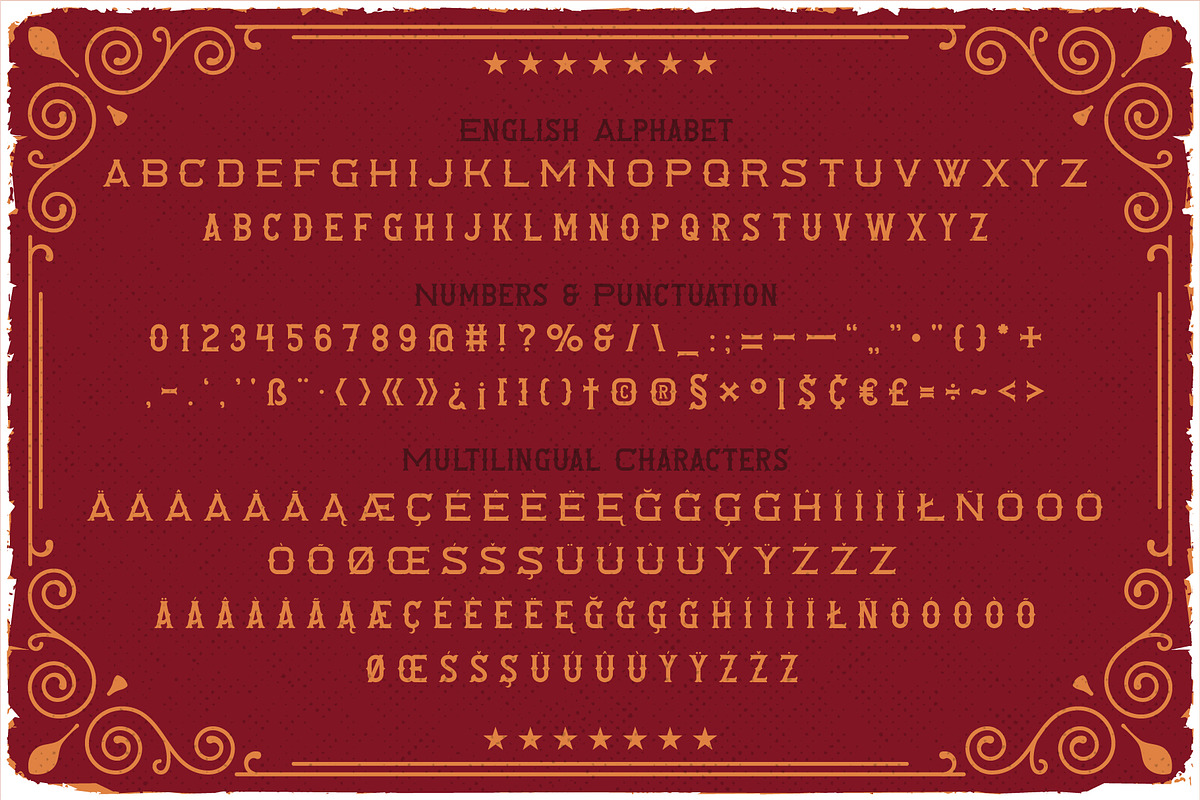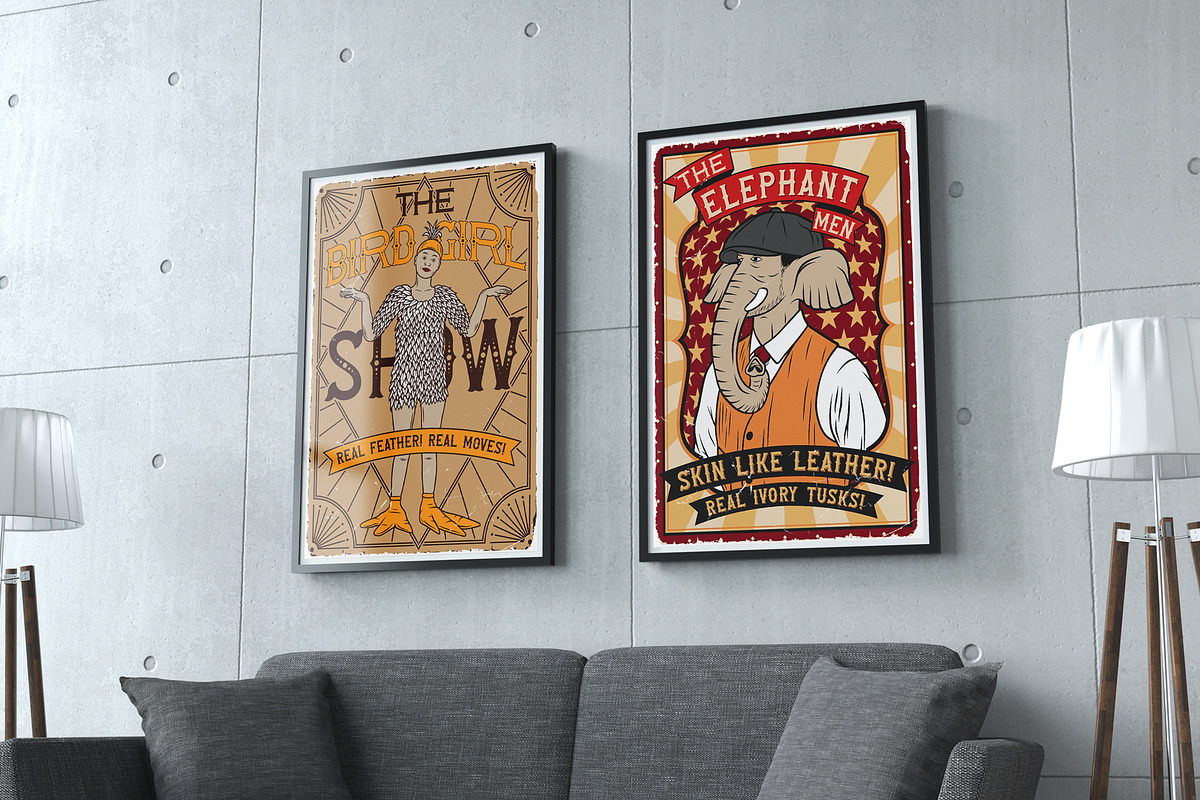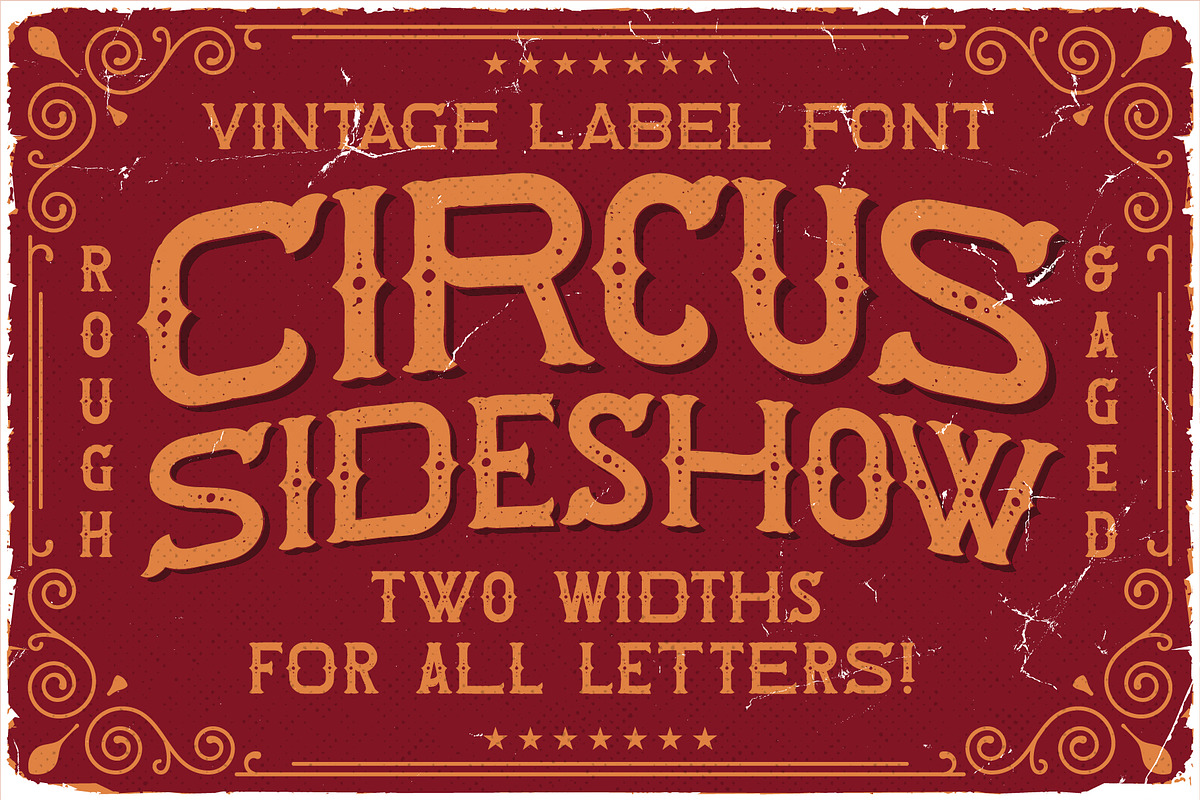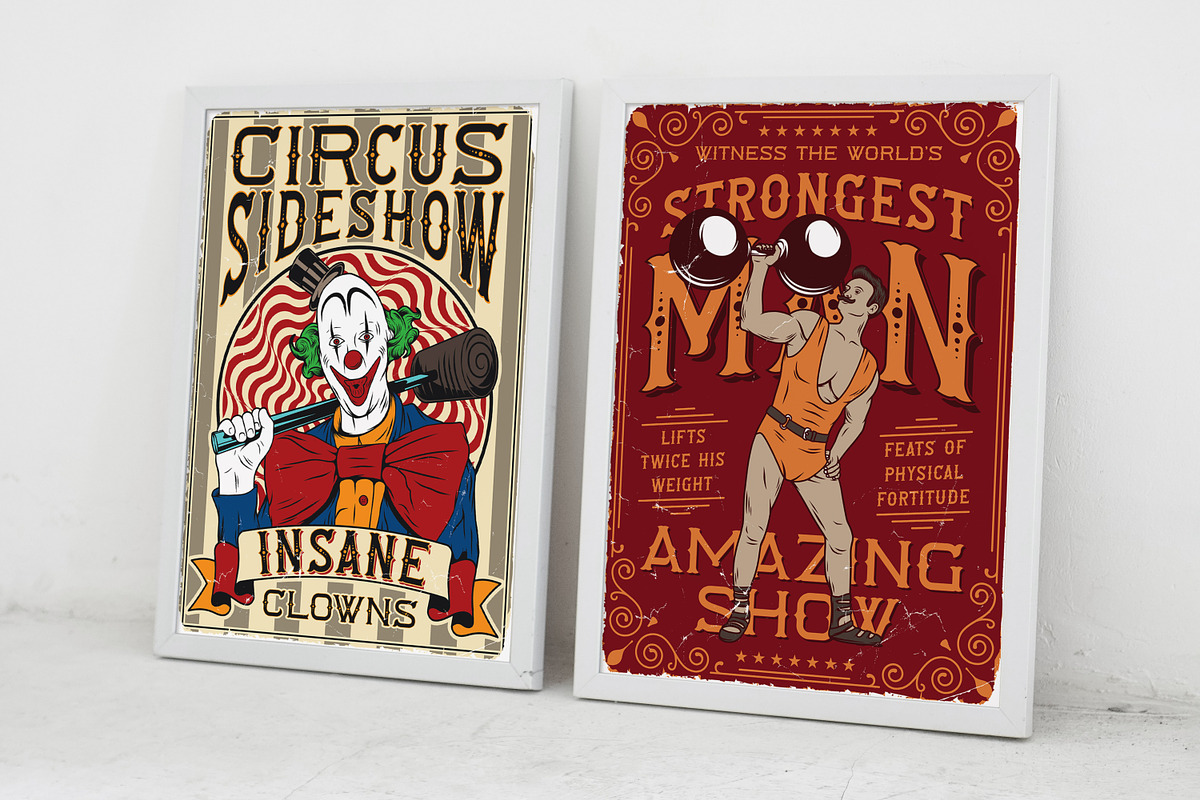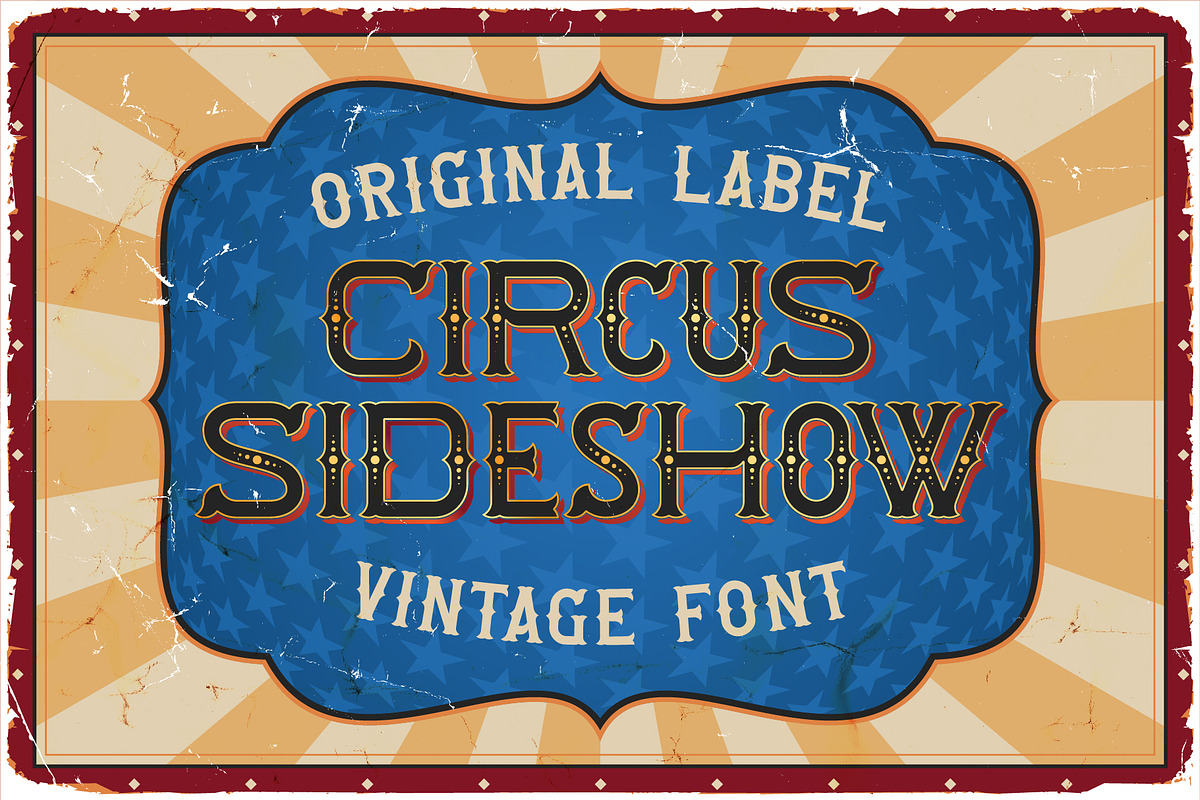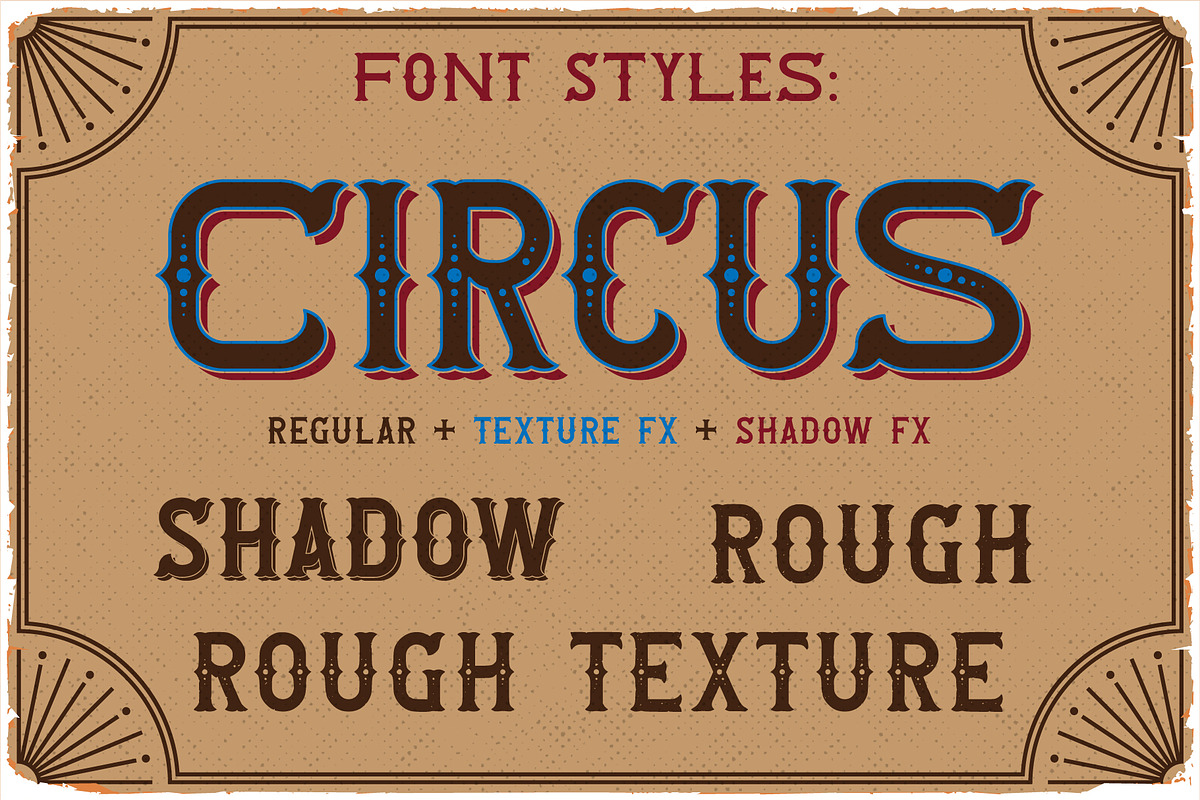
Circus Sideshow
Introducing vintage label font named Circus Sideshow. All available characters you can see at the screenshots. This font has six styles: Regular, Shadow, Rough, Rough Texture and two effect styles Texture FX and Shadow FX. This font will look good on any vintage styled designs like a poster, T-shirt, label, logo, etc.
- A lot of additional symbols and multilingual support.